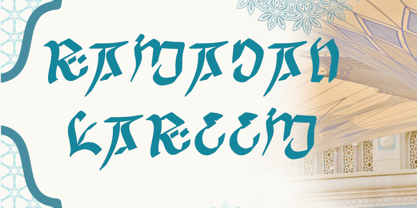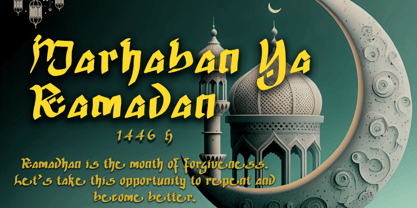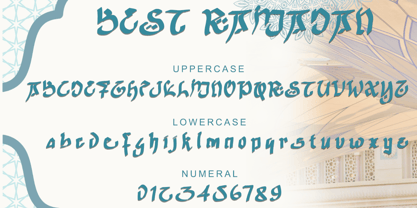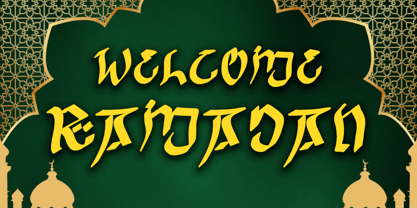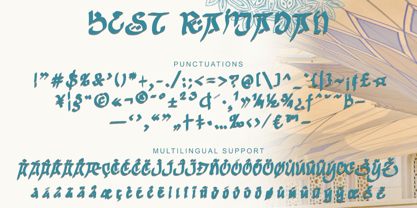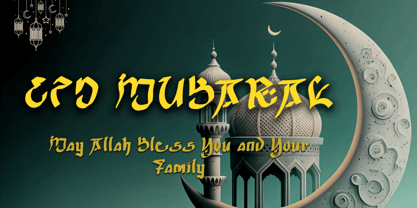
Best Ramadan
by Yoga Letter
The Best Ramadan Font Family was designed by Isroni Yoga Prasetya and published by Yoga Letter. Best Ramadan contains 1 styles. More about this family
"Best Ramadan" is a very elegant and unique Arabic style font. This font is equipped with uppercase, lowercase, numeral, punctuations and multilingual support. Very suitable for Ramadan moments, movie titles, book titles, logos, stickers, posters, prints, branding, invitations, Ramadan greetings and others.
Designers: Isroni Yoga Prasetya
Foundry: Yoga Letter